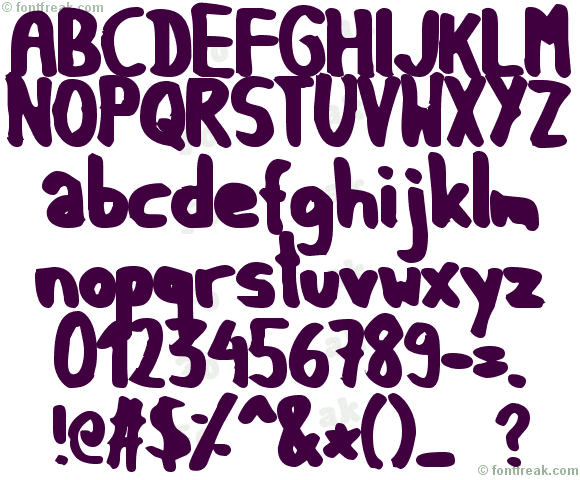
Matilda by Lorenz Goldnagl is a captivating display font that falls under the decorative category. Its distinctive style features rounded edges and a playful, organic feel, making it an eye-catching choice for various design projects. The font boasts a medium stroke weight with a consistent contrast, providing a balance between readability and artistic flair. The spacing between characters is well-considered, allowing for a harmonious flow that enhances its visual appeal. Matilda’s unique character shapes and whimsical design elements set it apart, making it suitable for creative applications.
This font is ideal for a range of use cases, including wedding invitations where an informal yet elegant touch is desired, movie posters that aim to capture attention with bold visuals, and restaurant menus that seek to convey a modern and inviting atmosphere. Additionally, Matilda is well-suited for children’s book covers, where its playful nature can engage young readers. Small business owners looking to establish a memorable brand identity will also find Matilda to be a valuable asset in their design toolkit.
What truly makes the Matilda font stand out is its ability to blend fun with functionality. The playful nature of the font captures attention while maintaining clarity, making it a perfect choice for projects that require both style and readability. For those looking to explore this unique typeface, a Matilda font free download is readily available, inviting creativity and innovation in every design endeavor.